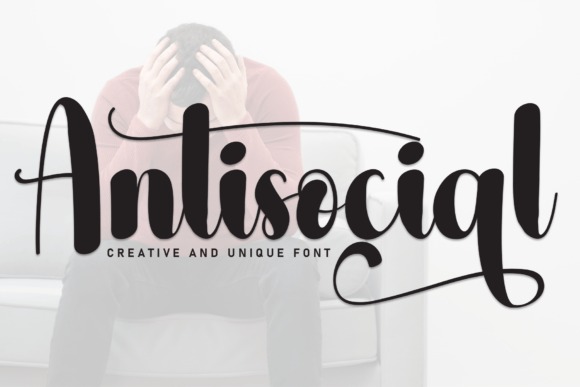
The Sweet and Friendly Antisocial Font: A Designer’s Delight
I still remember the time I was working on a wedding invitation project, and I just couldn’t find the right font to give it that personal touch. My client wanted something fresh, casual, and lovely – and I was on a mission to deliver. That’s when I stumbled upon the Antisocial font, and it instantly became my go-to choice. In this article, I’ll share my experience with this beautiful handwritten font, its features, and how to make the most of it in your designs.
An Honest Review of Antisocial Font
- ✨ Sweet and Friendly: Antisocial font has a warm, inviting feel to it. It’s perfect for creating designs that require a personal touch, such as wedding invitations, greeting cards, or social media graphics.
- ✅ Fresh and Casual: This font has a relaxed, effortless vibe that’s ideal for designs that need to feel approachable and laid-back.
- ✅ Highly Readable: Despite its casual nature, Antisocial font is surprisingly readable, even at smaller font sizes.
- 🤔 Limited Formality: Antisocial font is, by design, a casual font. It might not be the best choice for more formal projects, such as corporate branding or official documents.
- ⚠️ Glyph Limitations: While Antisocial font has a range of glyphs and OpenType features, it might not have every special character or symbol you need.
One of the best things about Antisocial font is its range of OpenType features and glyphs. These allow you to customize your text with:
- Stylistic Alternates: Swap out letters or words for alternate versions with a different look.
- Glyphs: Access special characters, such as ligatures or ornaments, to add visual interest.
The Story Behind Antisocial Font
While the origins of Antisocial font are unclear, it’s easy to imagine a designer creating this font as a way to bring a bit of joy and personality to everyday designs. Perhaps they wanted to craft a font that felt like a handwritten letter from a friend – warm, inviting, and full of character.
| Font Name | Antisocial Font |
| What makes Antisocial font so special? | Its sweet and friendly personality, combined with its fresh and casual feel, make it perfect for designs that need a personal touch. |
| Is Antisocial font suitable for body text? | While Antisocial font is highly readable, it’s generally better suited for headings or short paragraphs rather than long blocks of body text. |